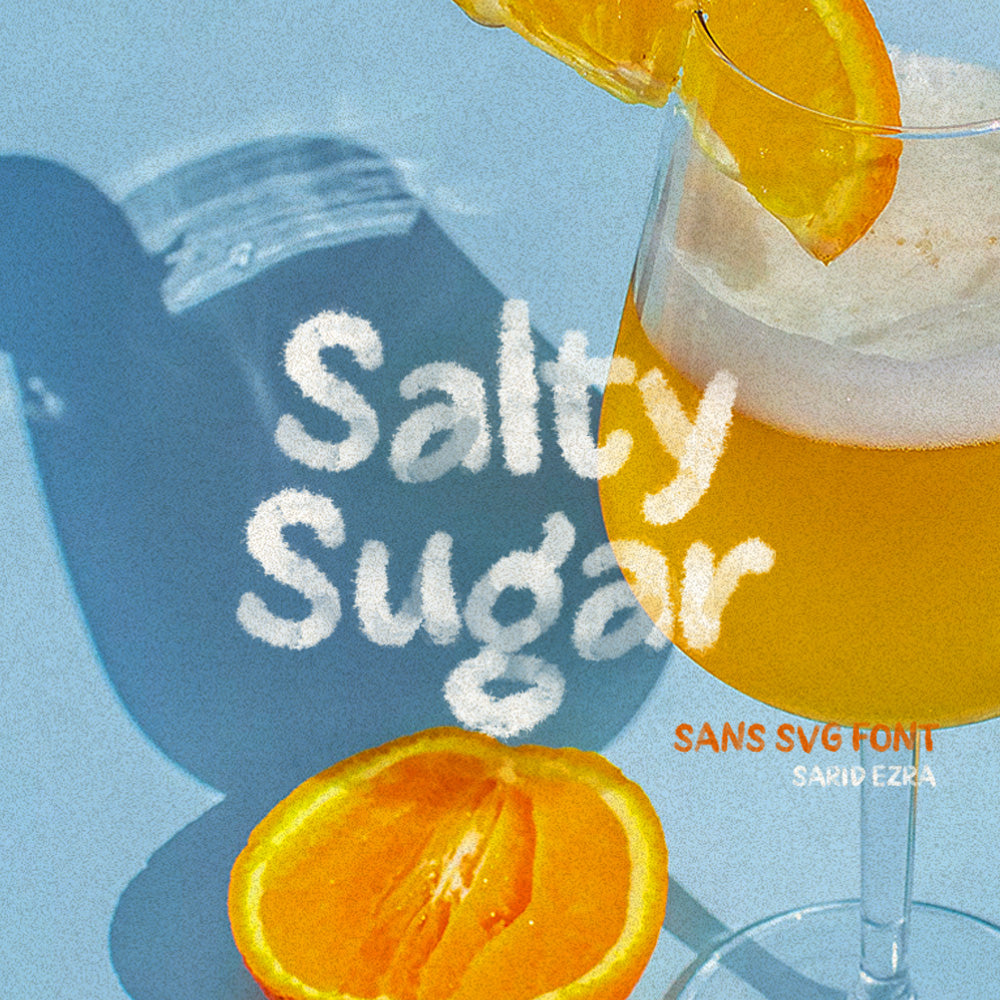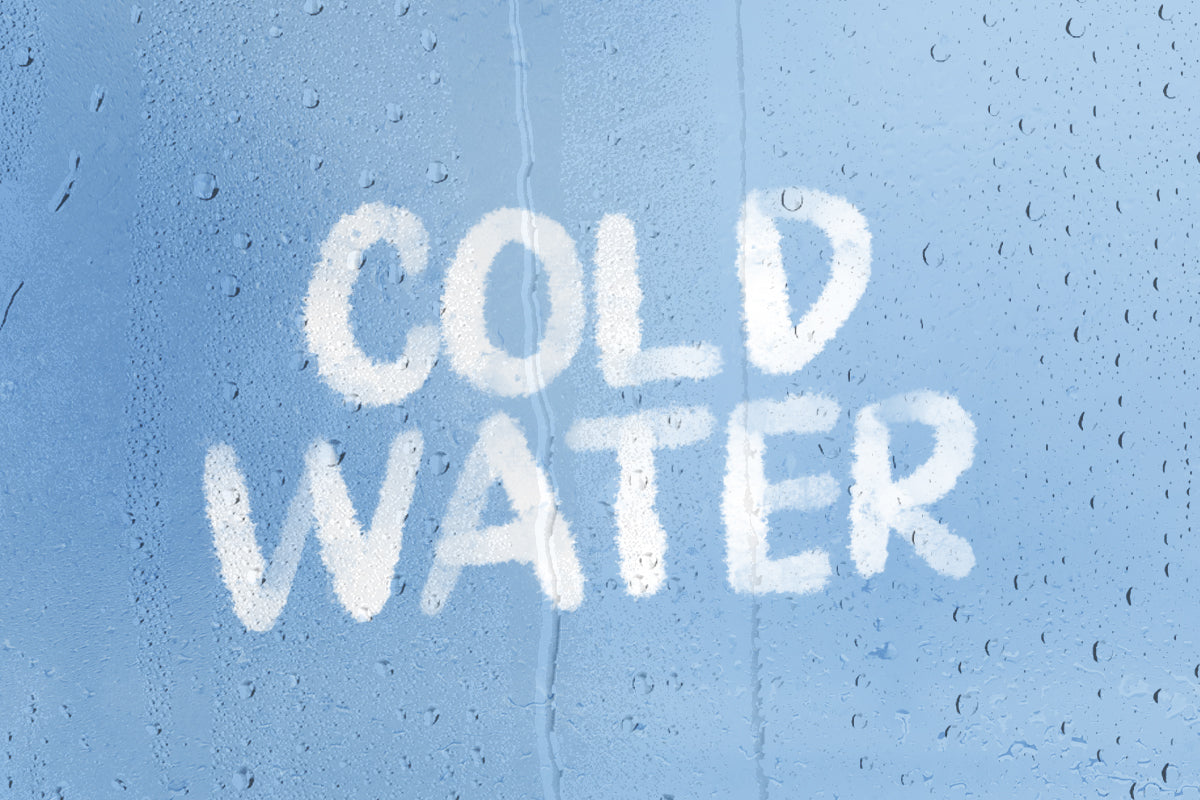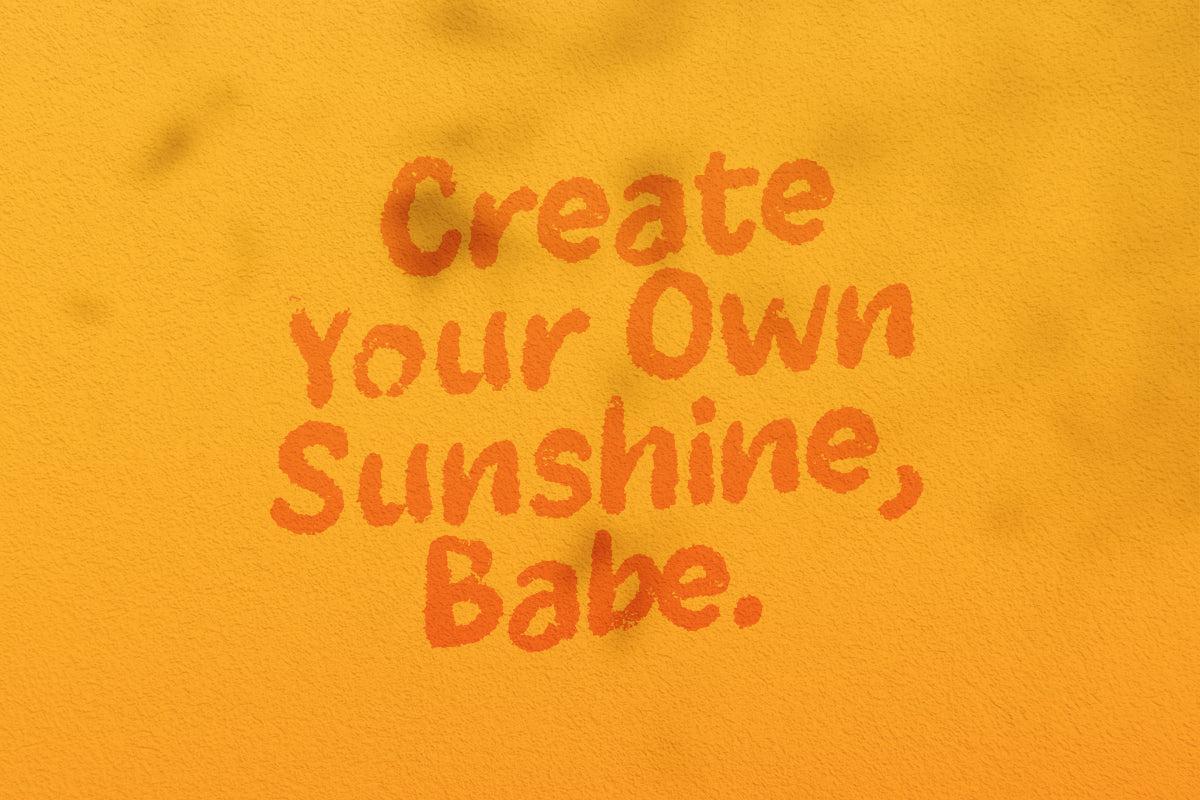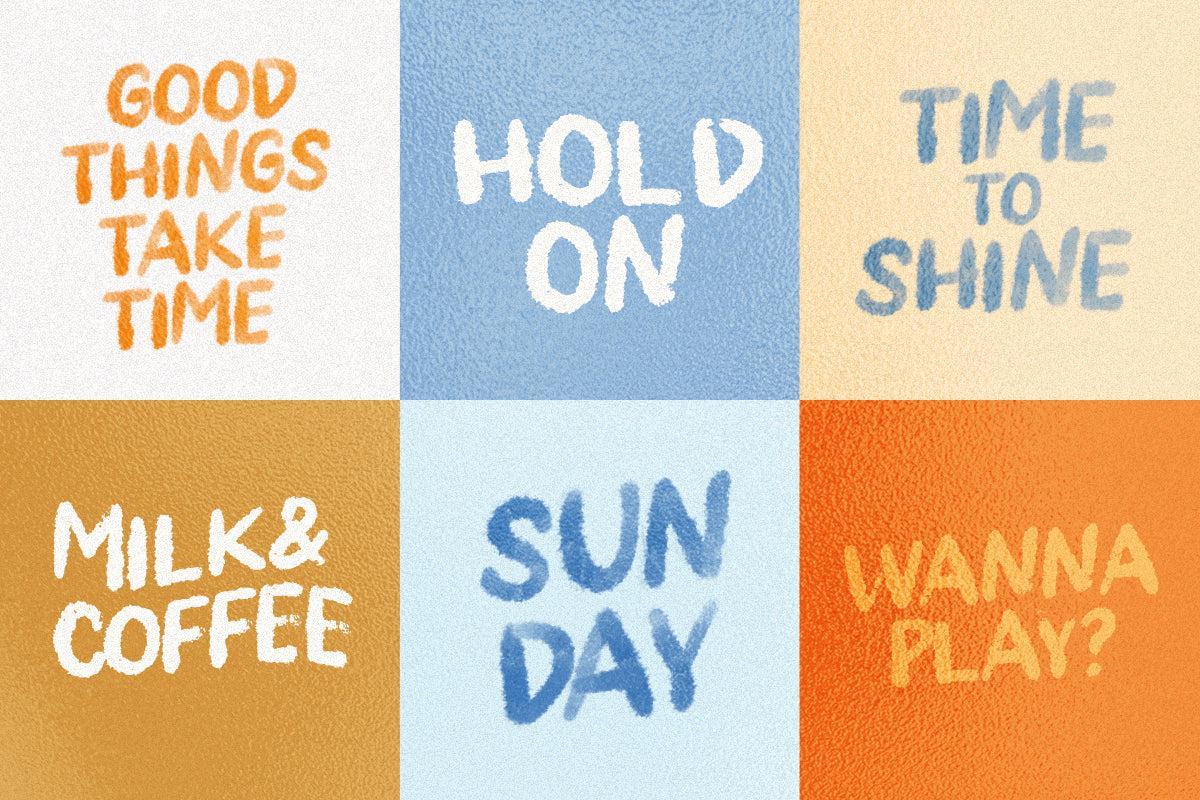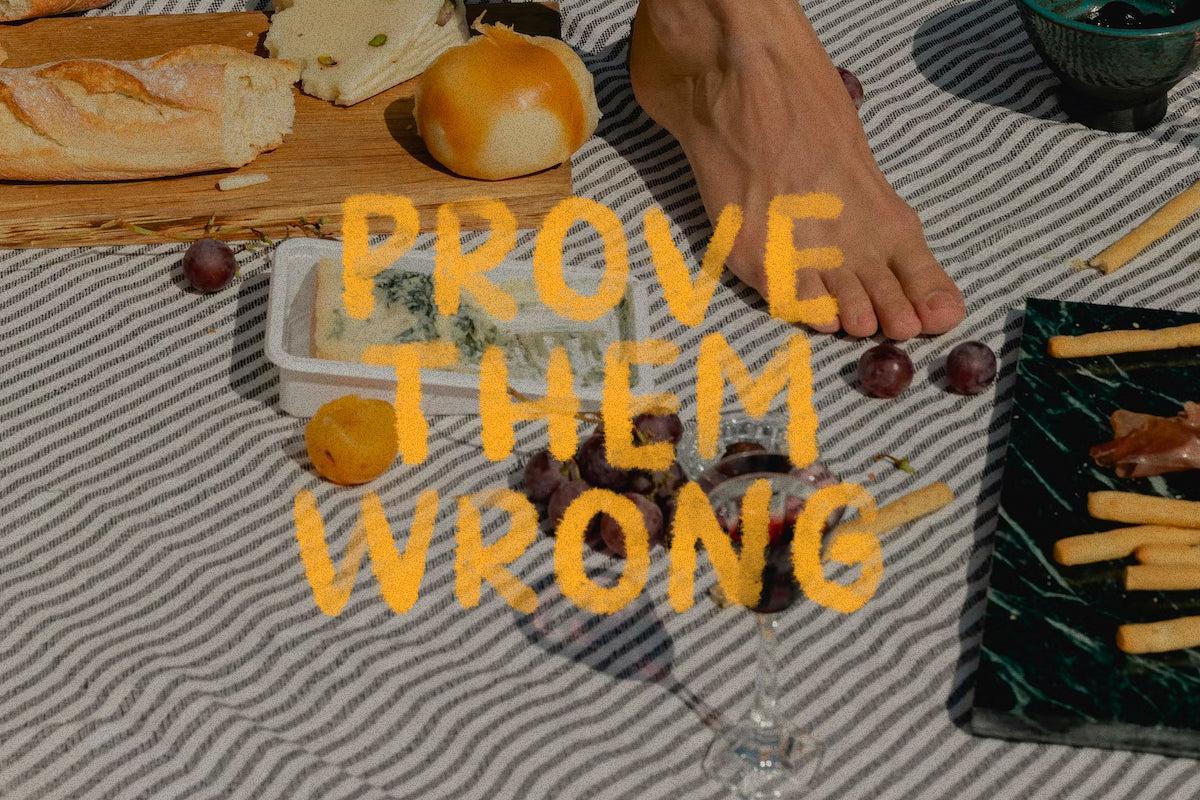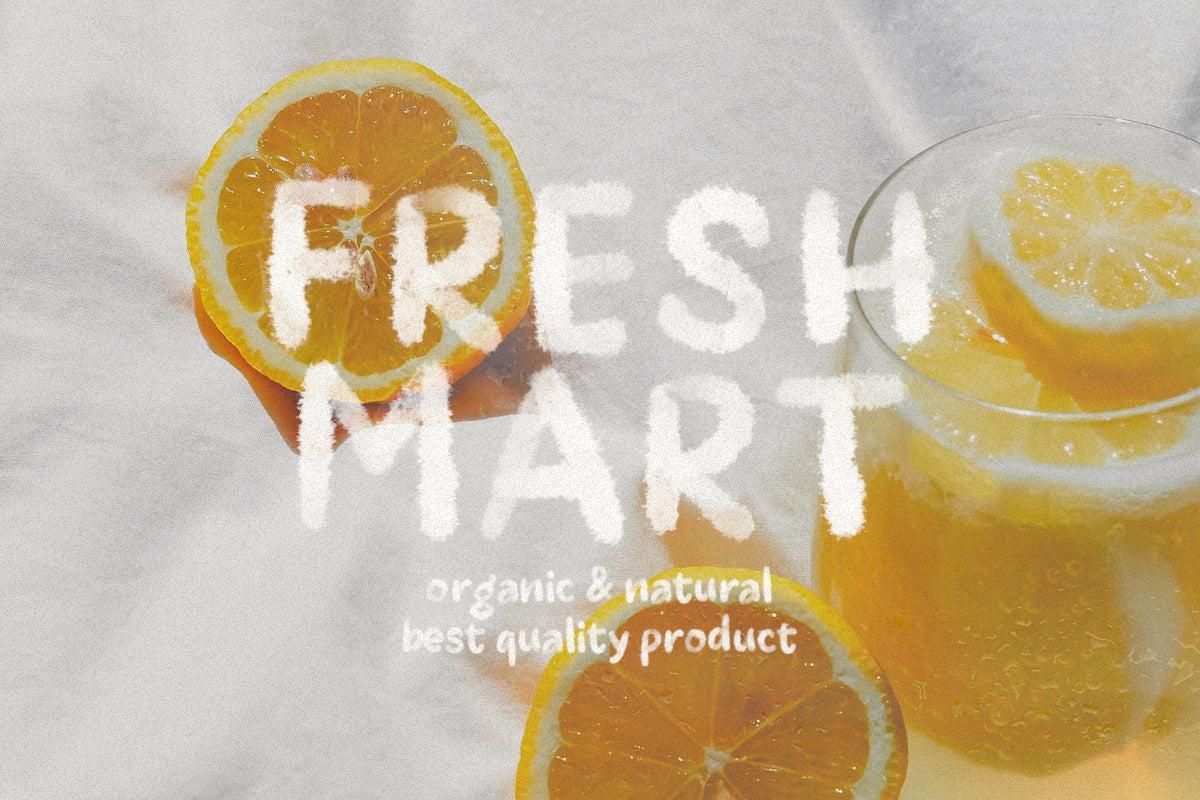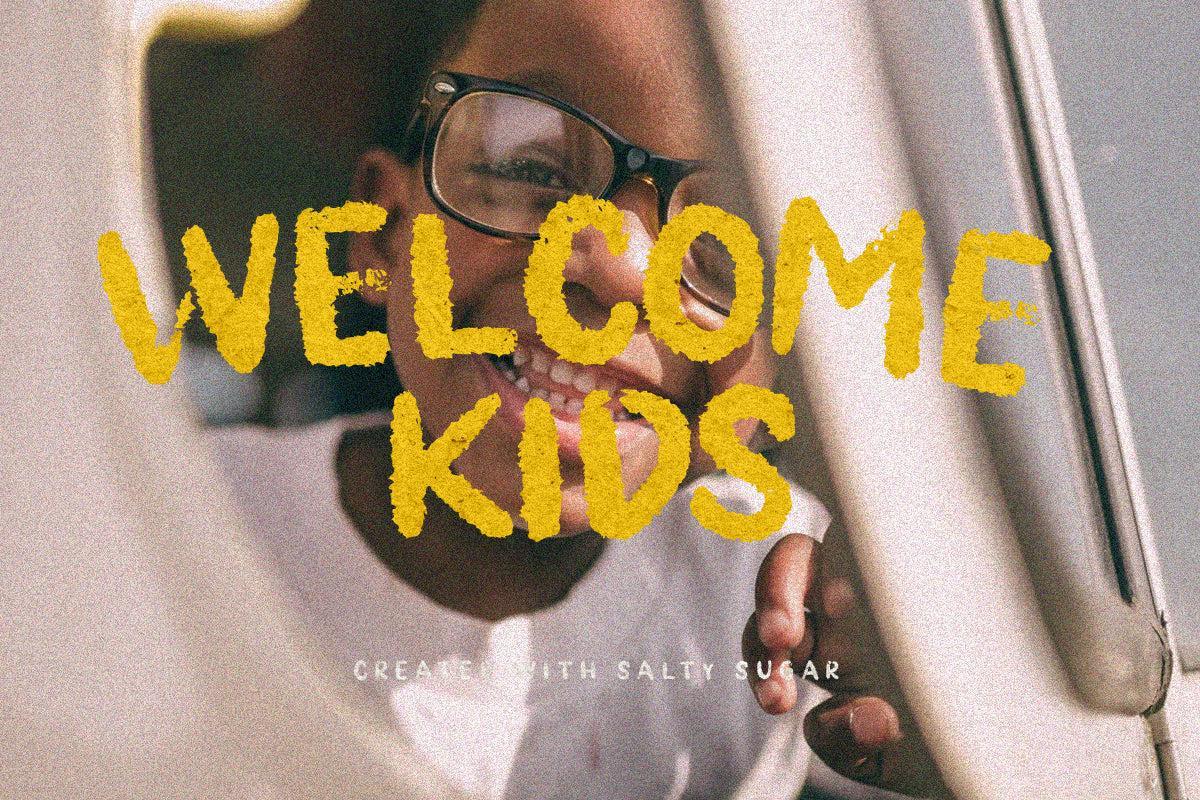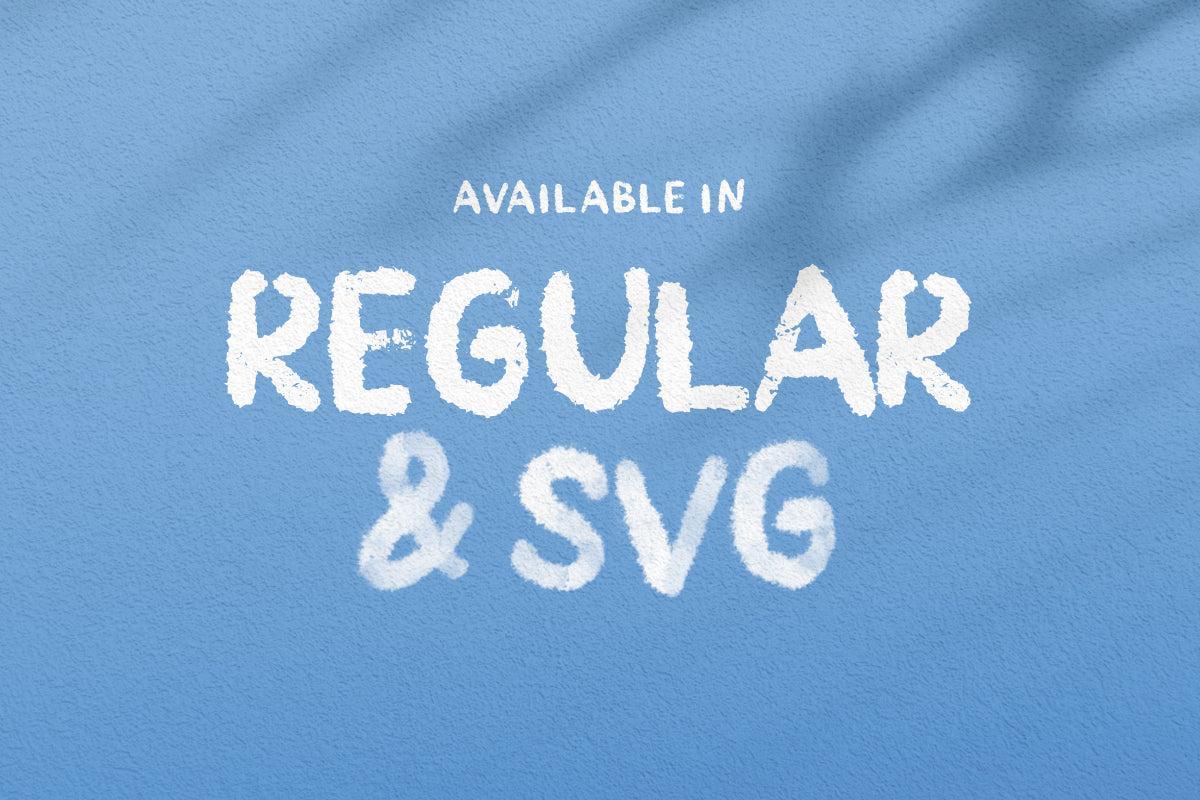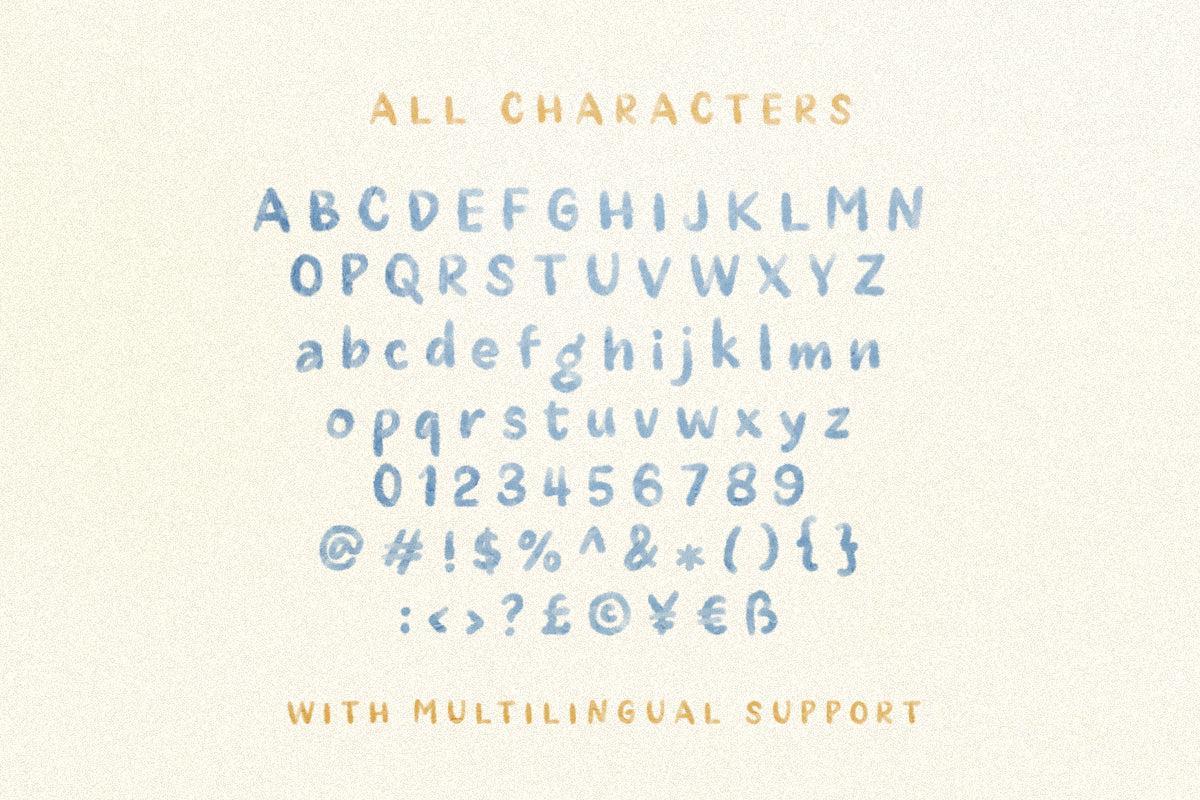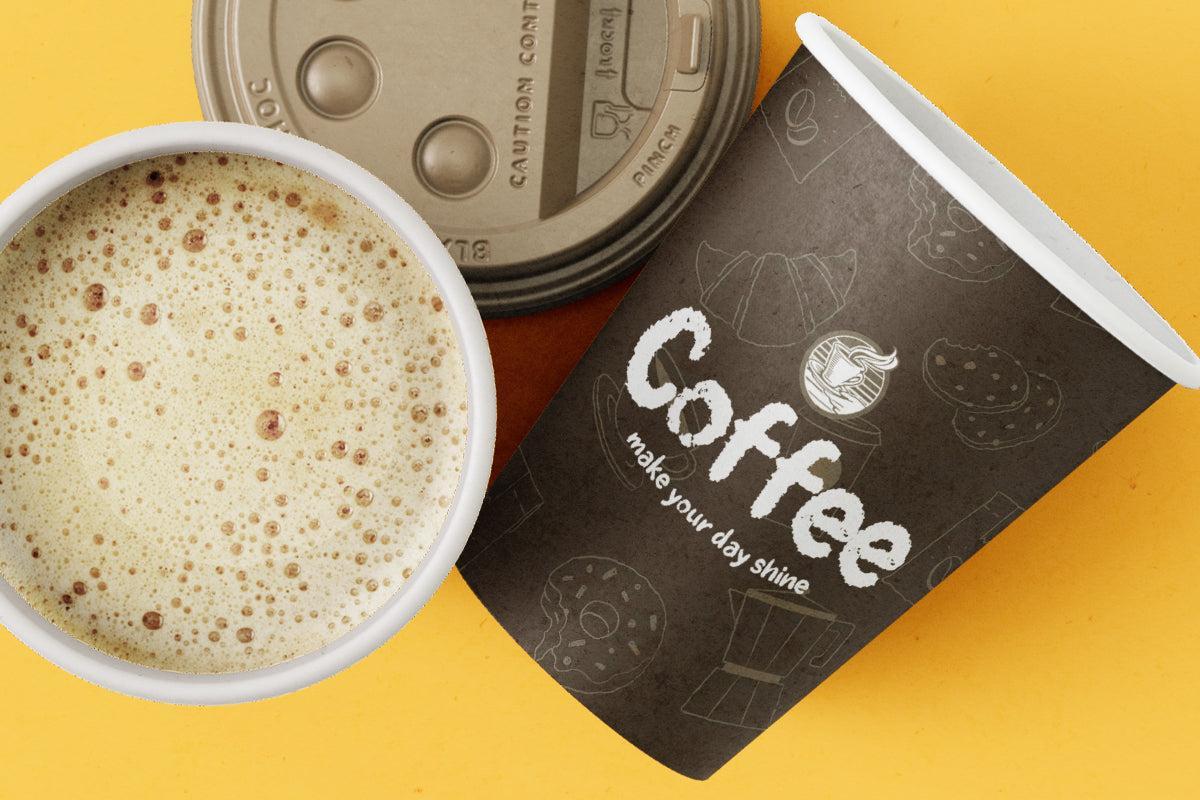
Salty Sugar - Sans SVG Font
Salty Sugar is a sans SVG font featuring a watercolor texture, available in both SVG OTF and vector formats (OTF/TTF). It includes numbers, symbols, and punctuation, and supports multilingual characters.